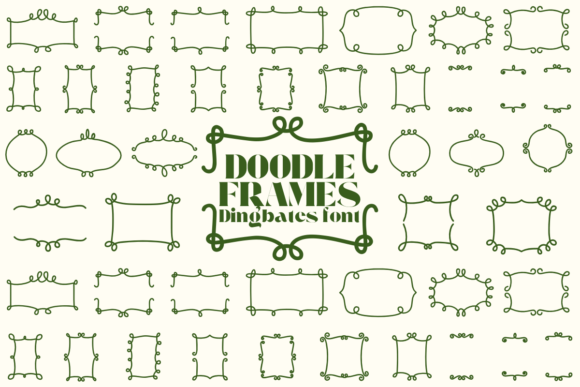
Introduction to Doodle Frames Font
Doodle Frames is a dingbats font with theme with a sketch style.
This font can enhance your creative projects such as wedding invitations, DIY, crafts, decorations, logos, and many other creative ideas .
Key Features of Doodle Frames Font
Why Choose Doodle Frames Font?
Doodle Frames Font offers exceptional quality and versatility, making it a valuable addition to your design toolkit. Whether you’re creating for personal projects or commercial use, Doodle Frames Font delivers professional results.